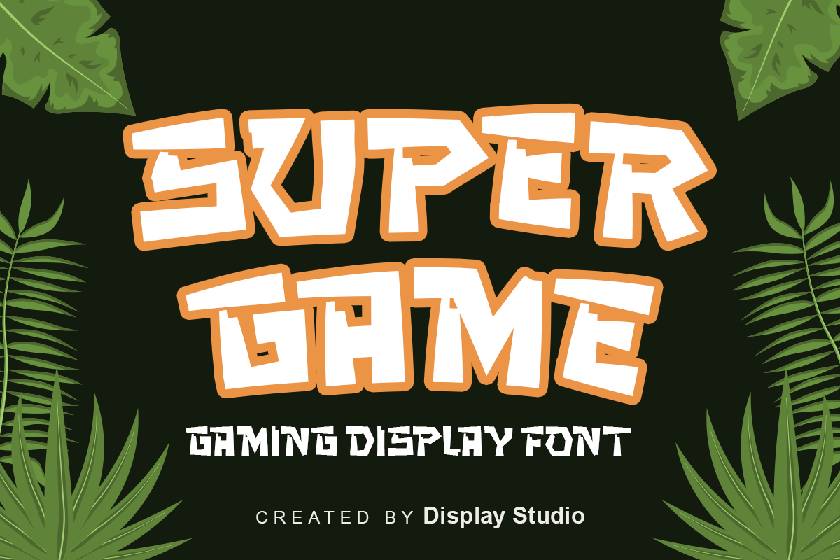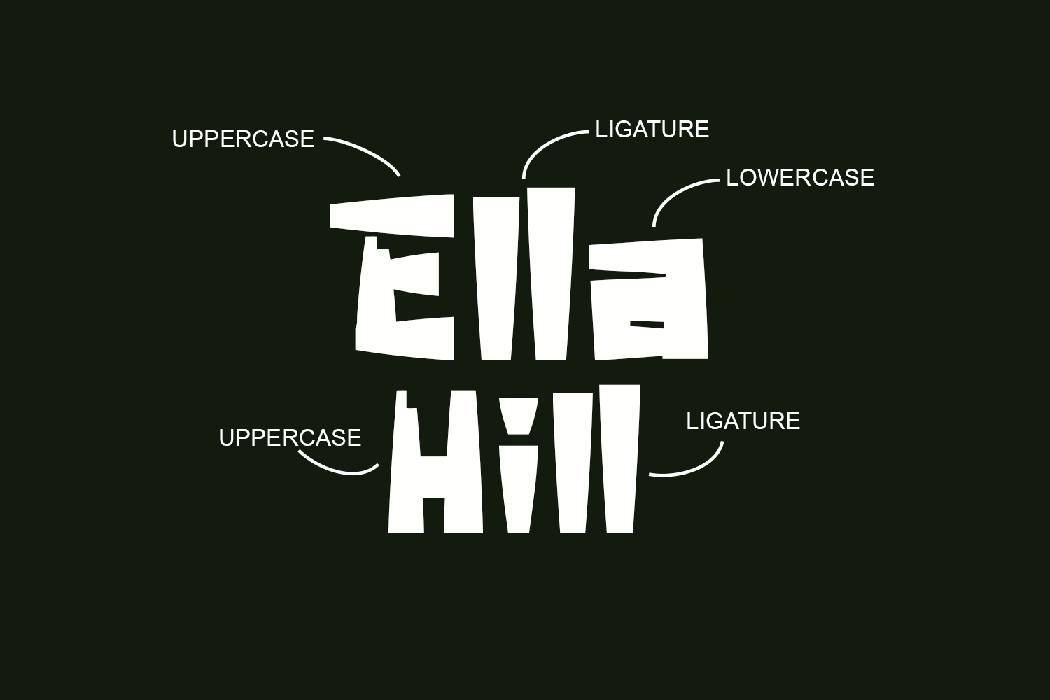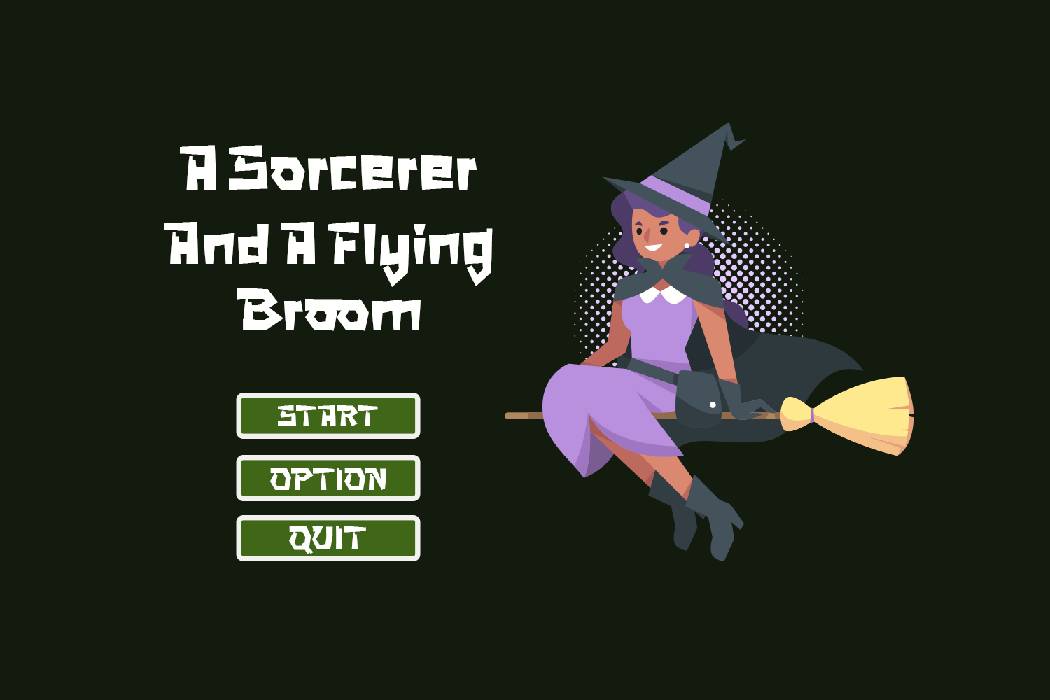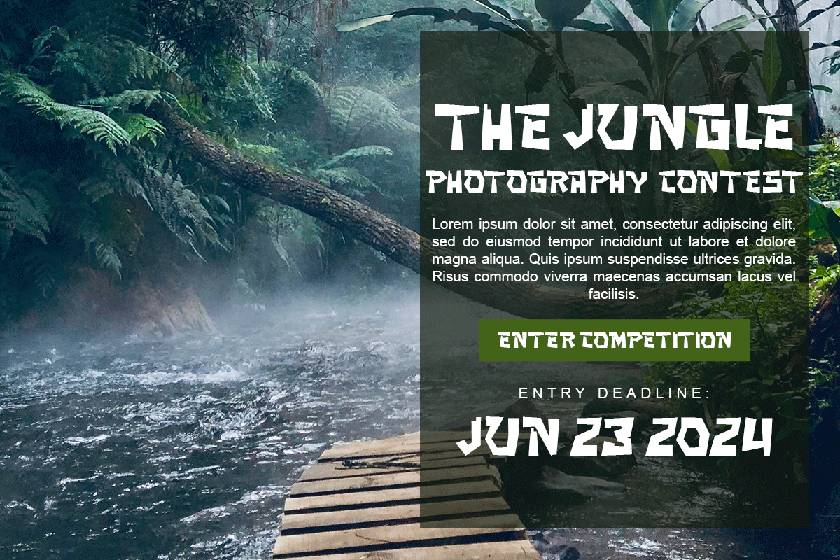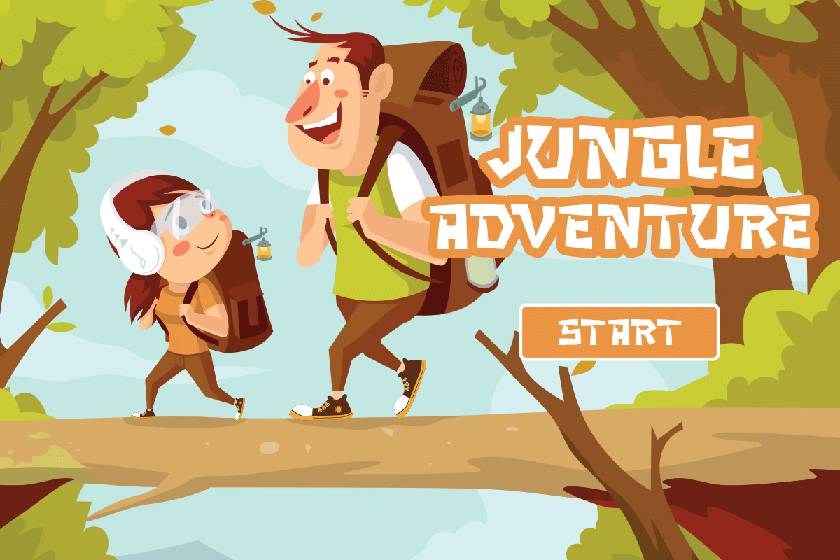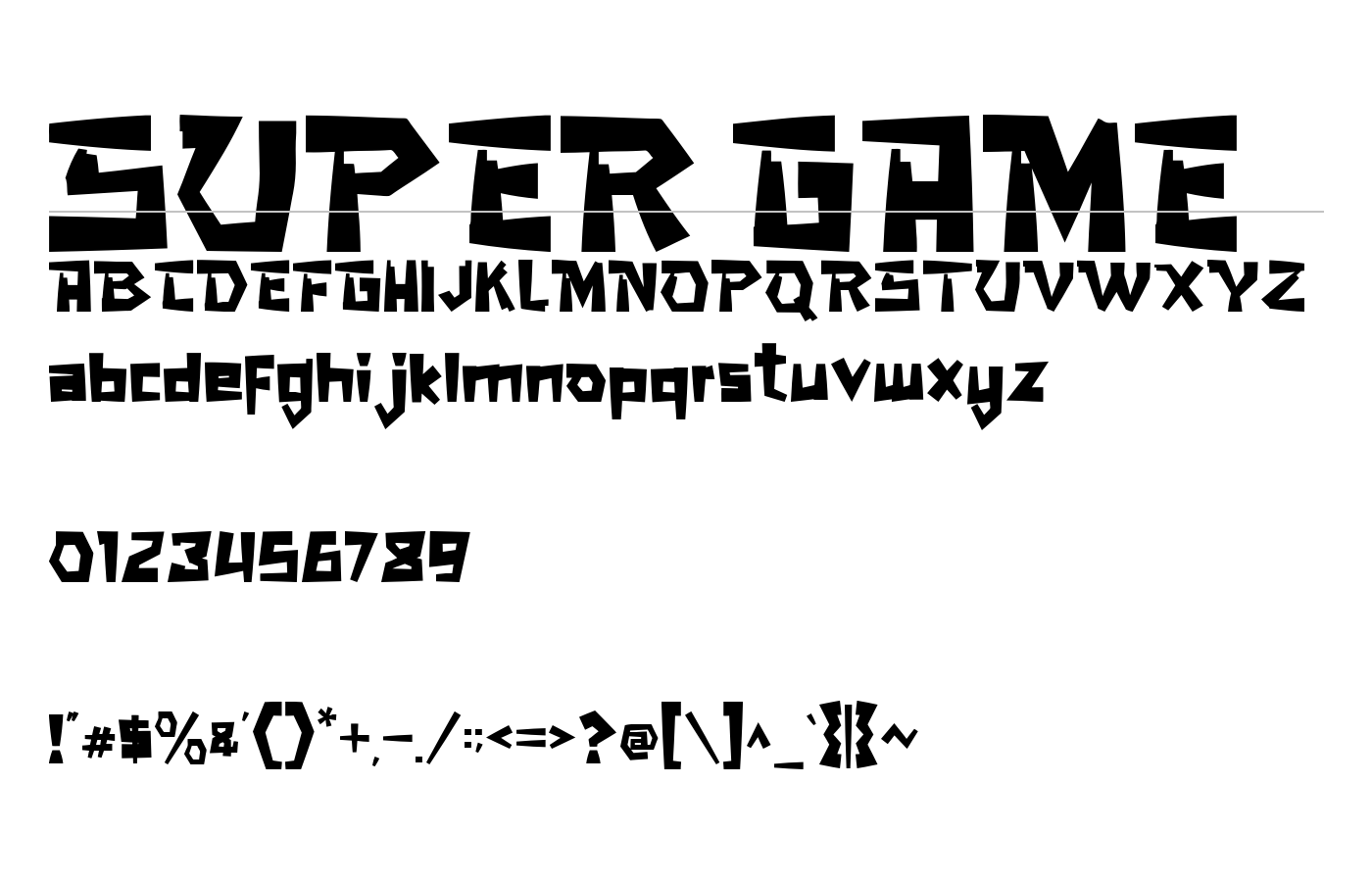
Super Game Font is a bold, playful display typeface with sharp, irregular geometric shapes that give it a dynamic and energetic feel. Its slightly condensed and uneven letterforms make it ideal for fun, adventurous designs, perfect for gaming, posters, and branding that seeks a quirky, youthful vibe. This font captures a sense of movement and excitement, making it well-suited for eye-catching headlines and creative projects.
Super Game Font
About Super Game Font